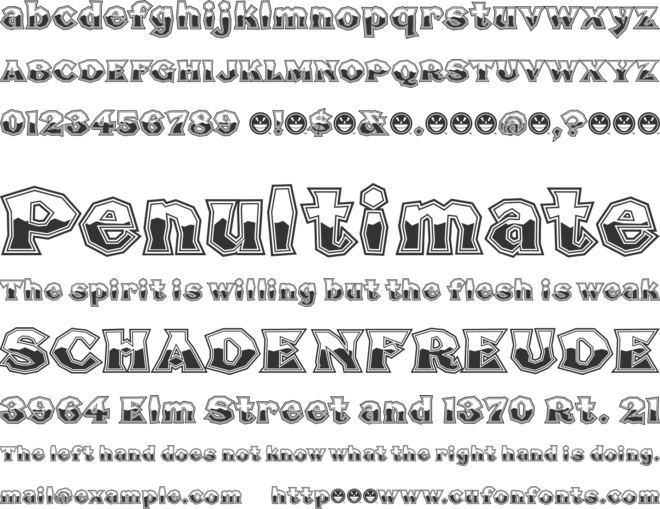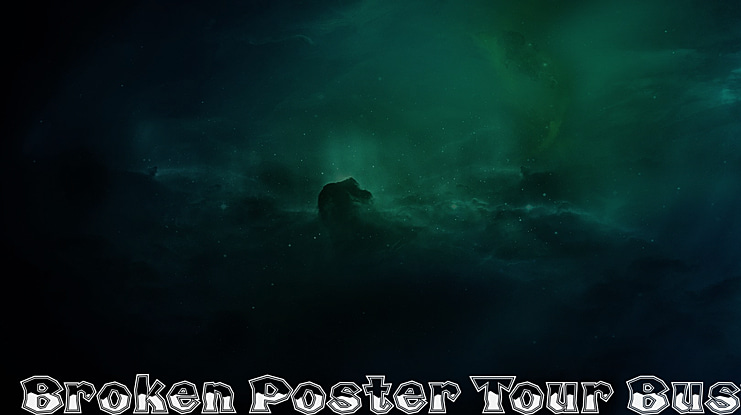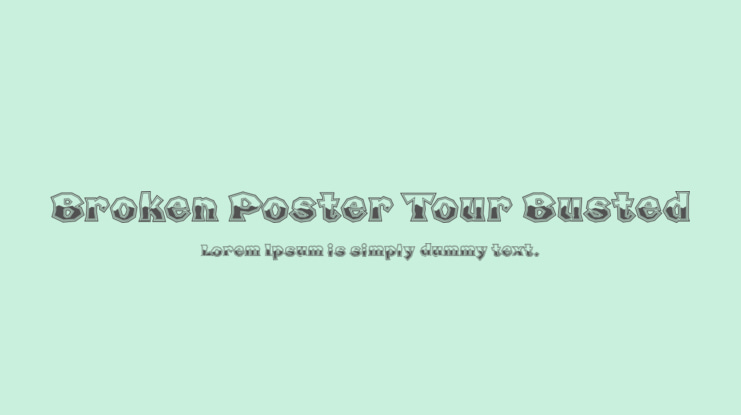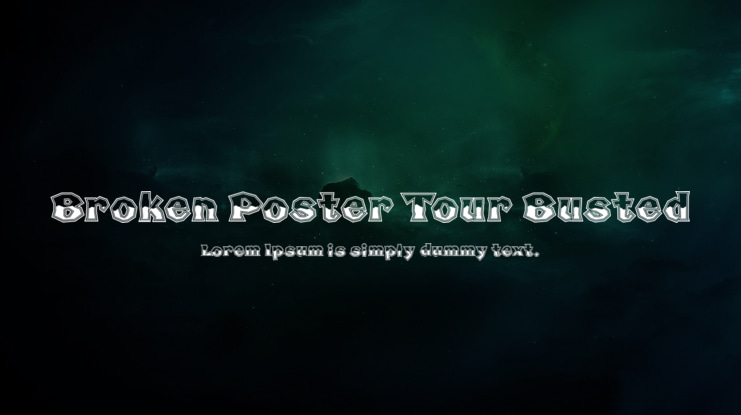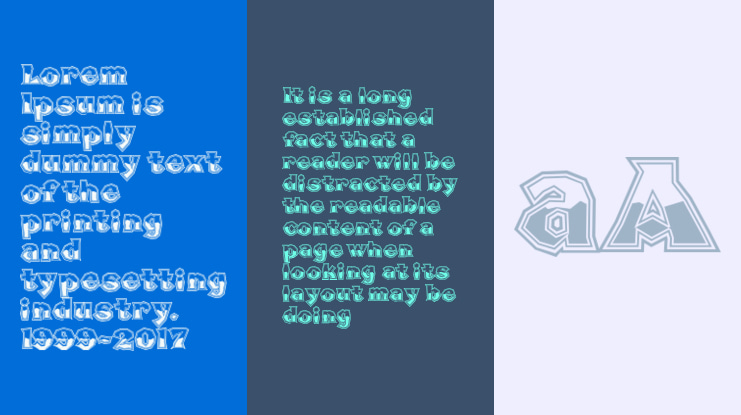
Broken Poster Tour Busted Font Family
The huge jags and sharp angles of legendary sign painter Frank H. Atkinson's Broken Poster have returned with a vengeance. At a hundred plus years and counting, Broken Poster isn't exactly a new kid on the block. What is new is that it now comes in three fun variations: Broken Poster, Broken Poster Tour and Broken Poster Tour Busted. Break out your vector program and get ready to have some fun.